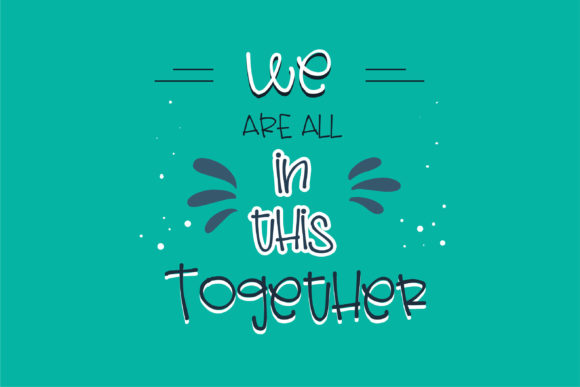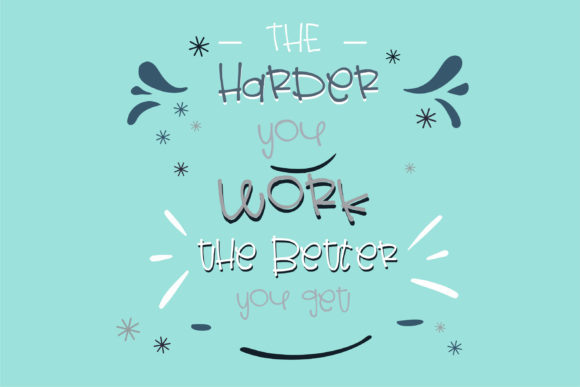
Troublemaker Font
db-ku.com - Script & Handwritten -- This handwritten font named Troublemaker feels very juvenile. The letters are bouncy and whimsical, perfect for designing kids-related stuff.